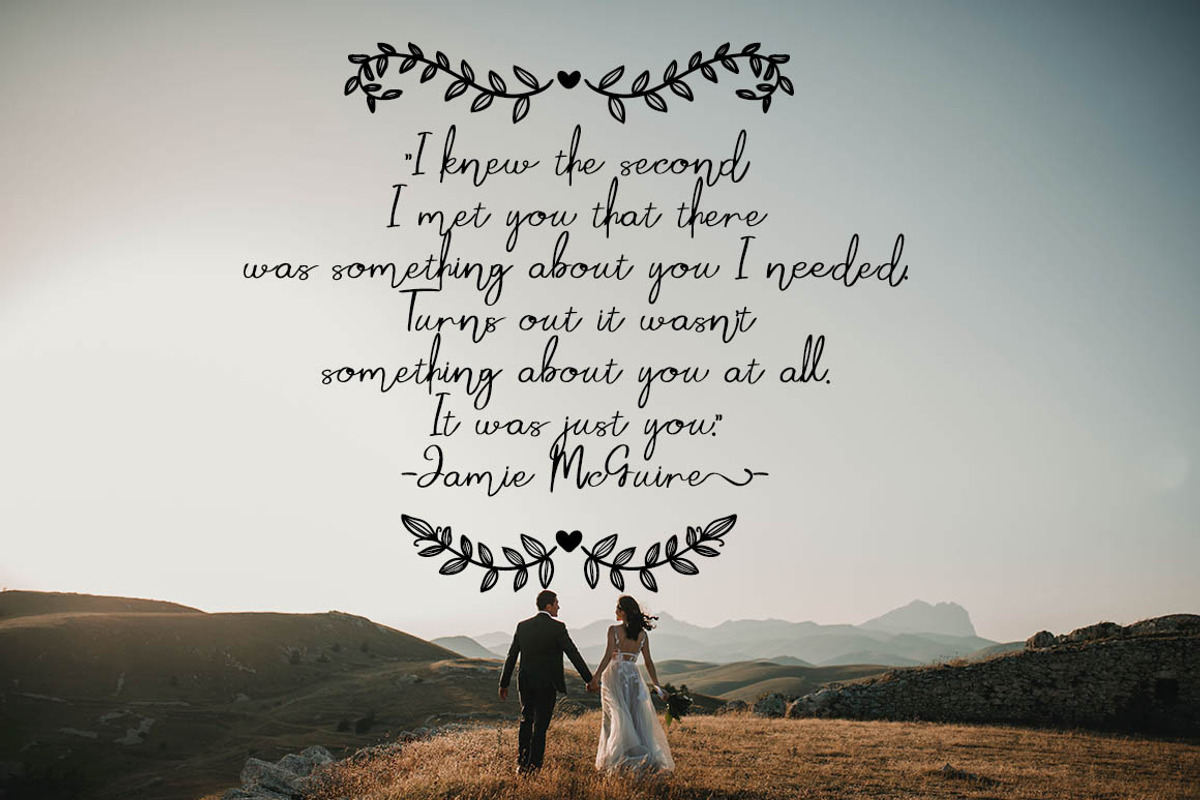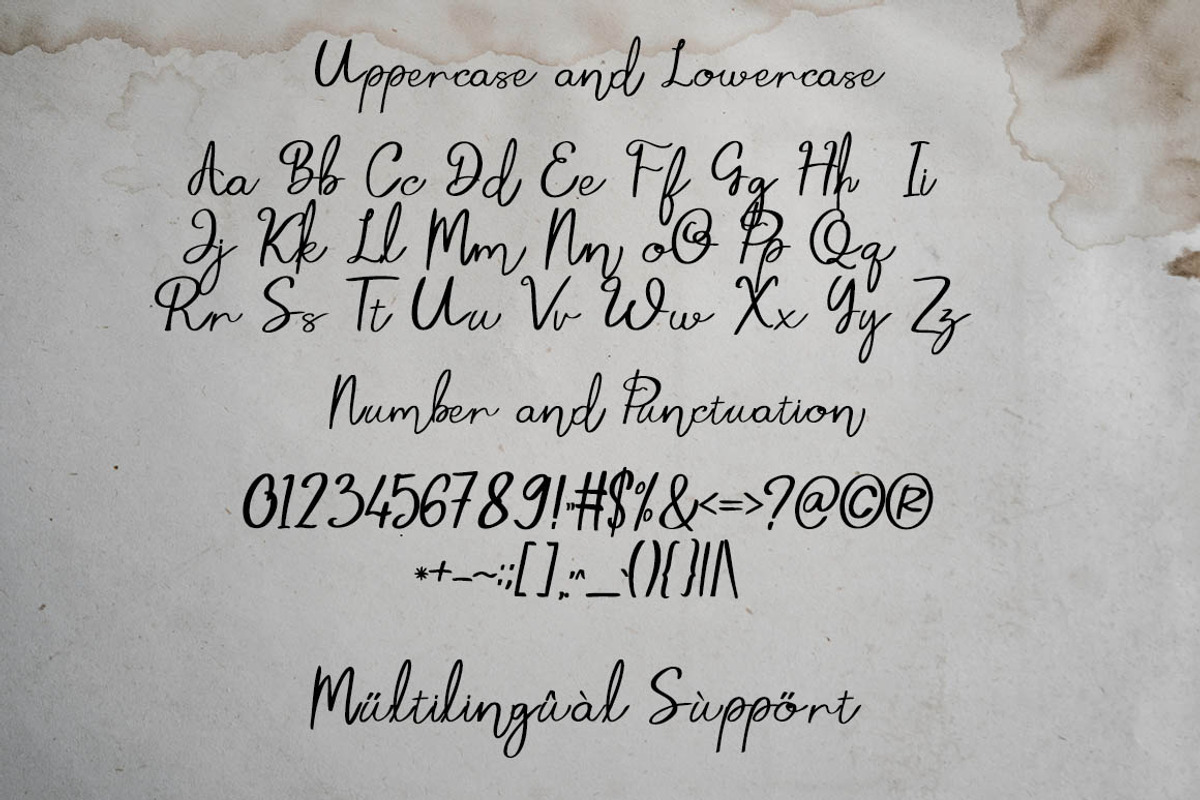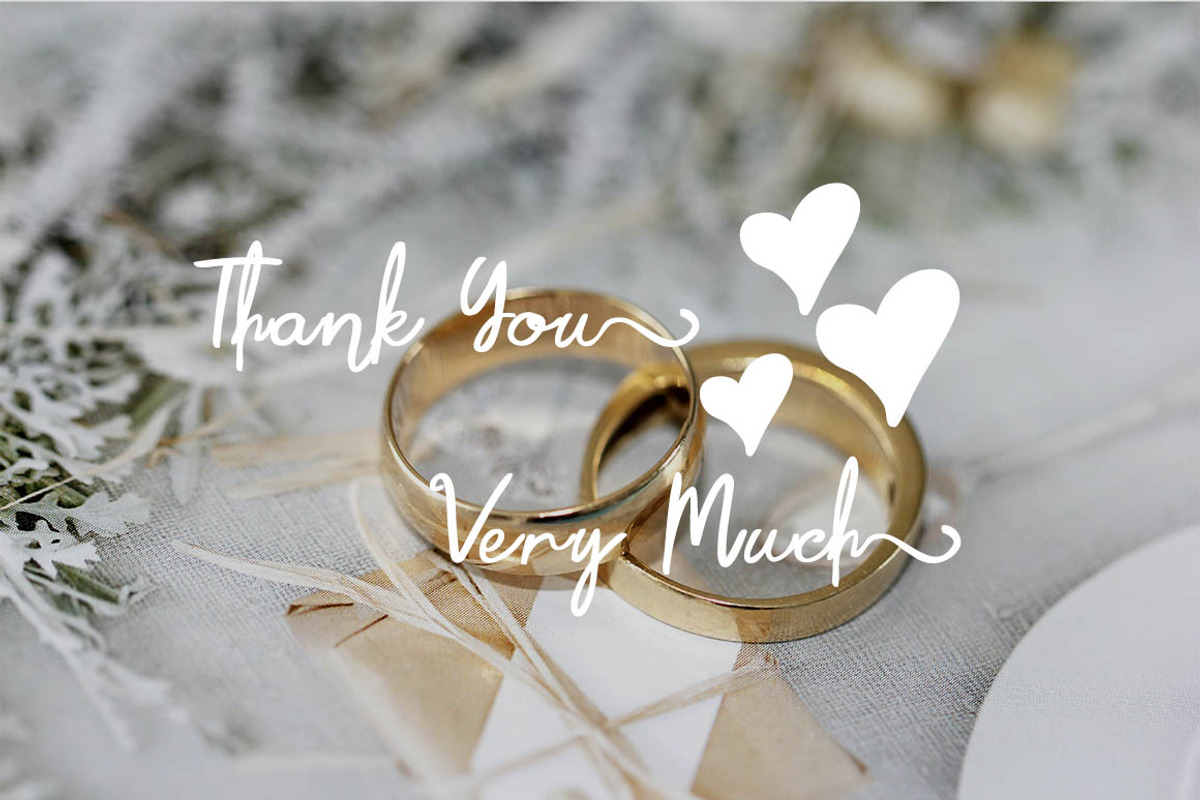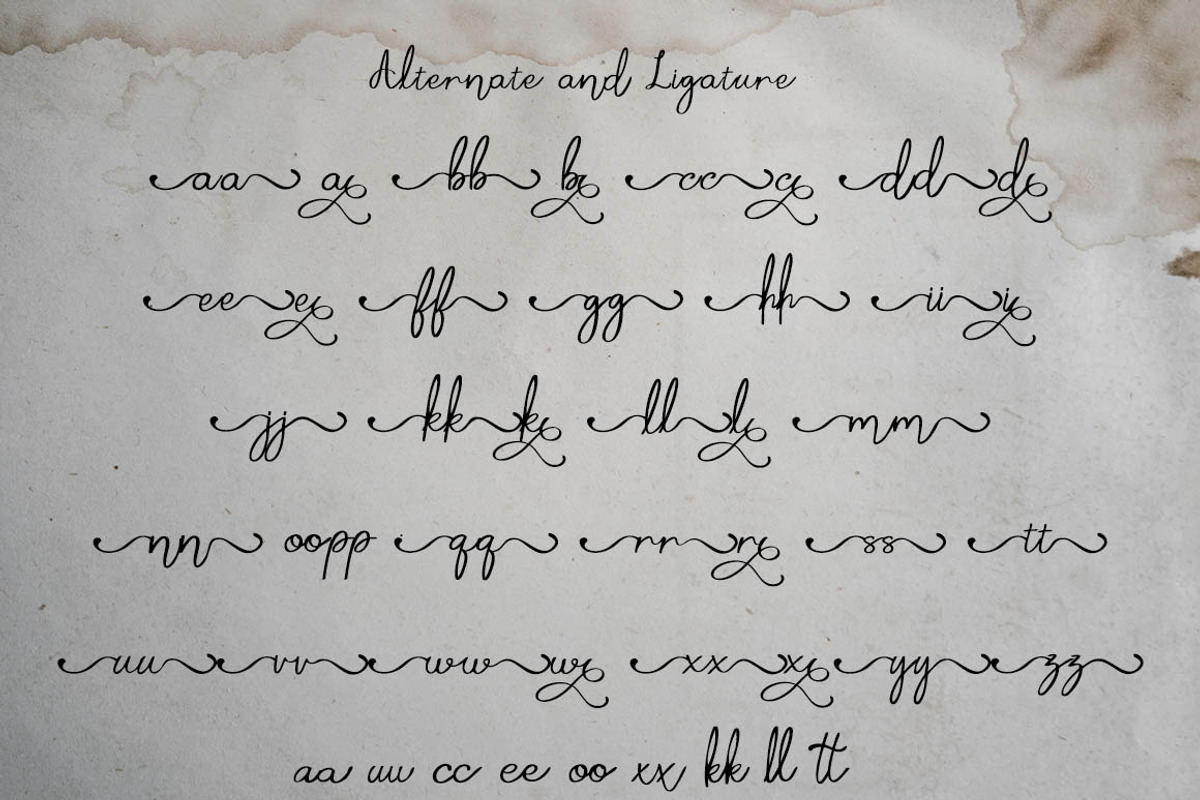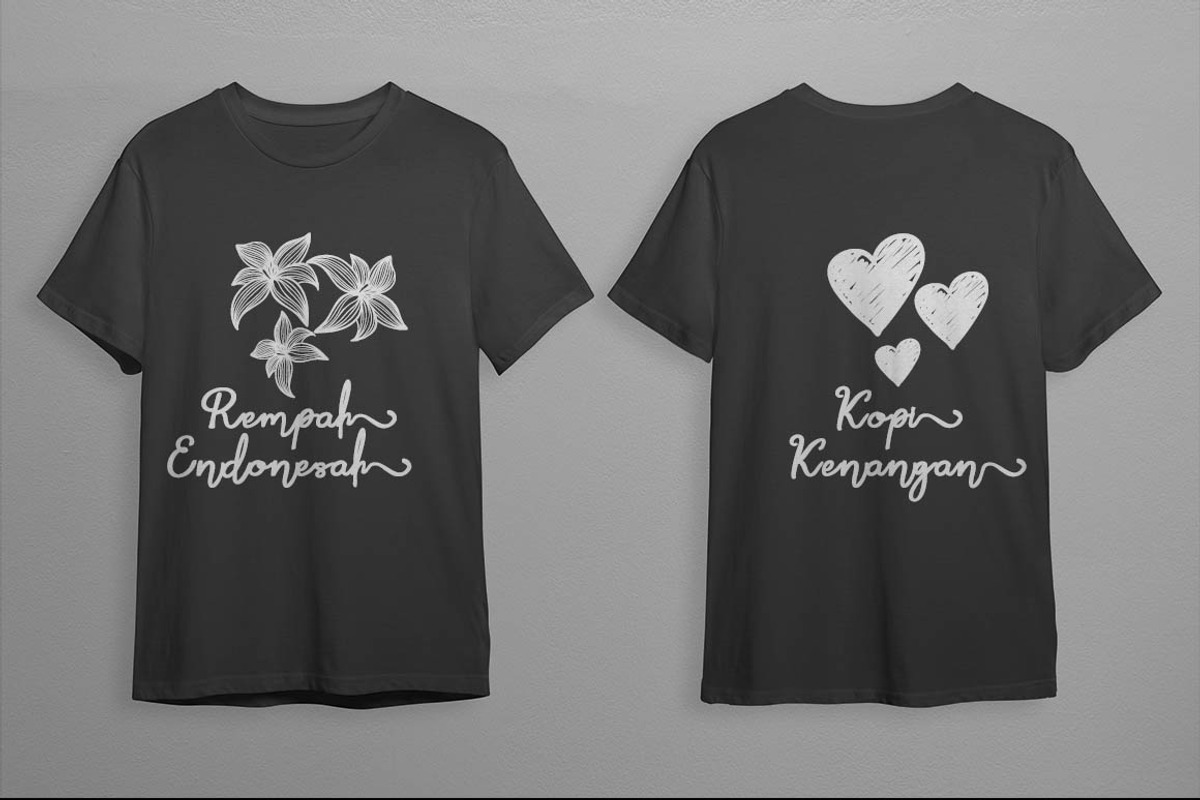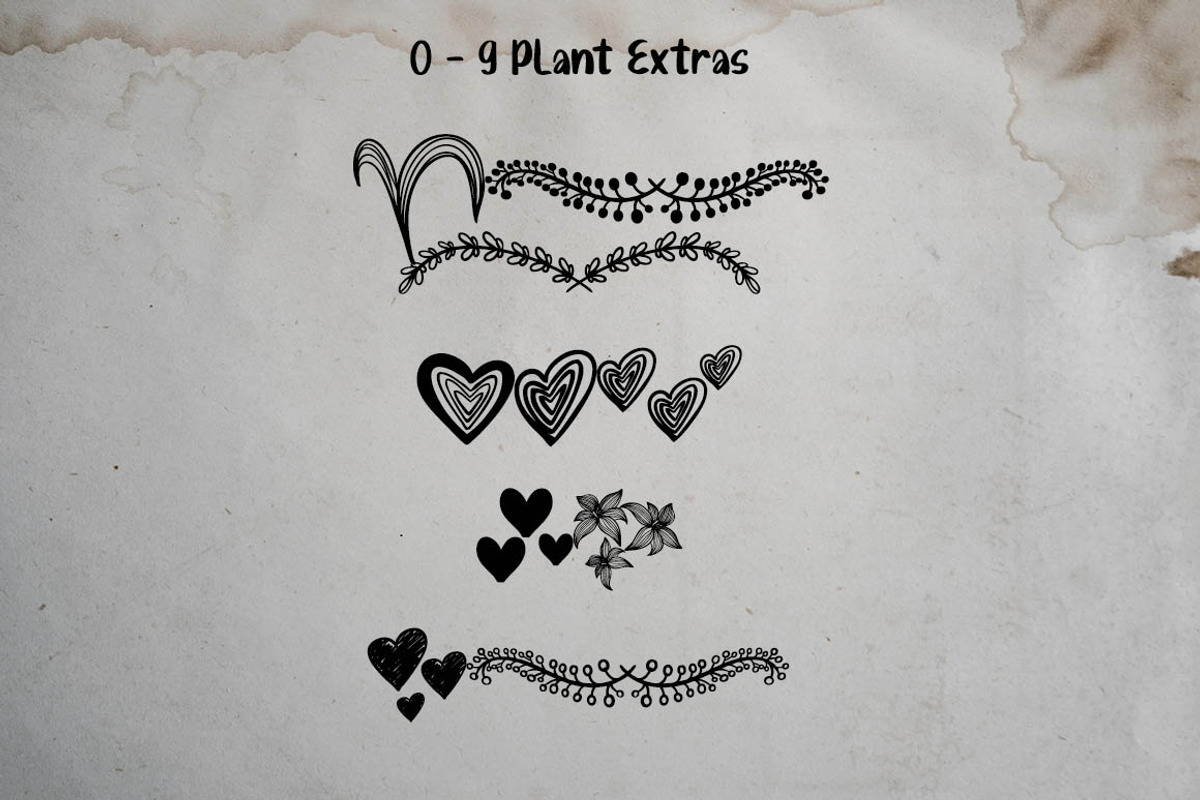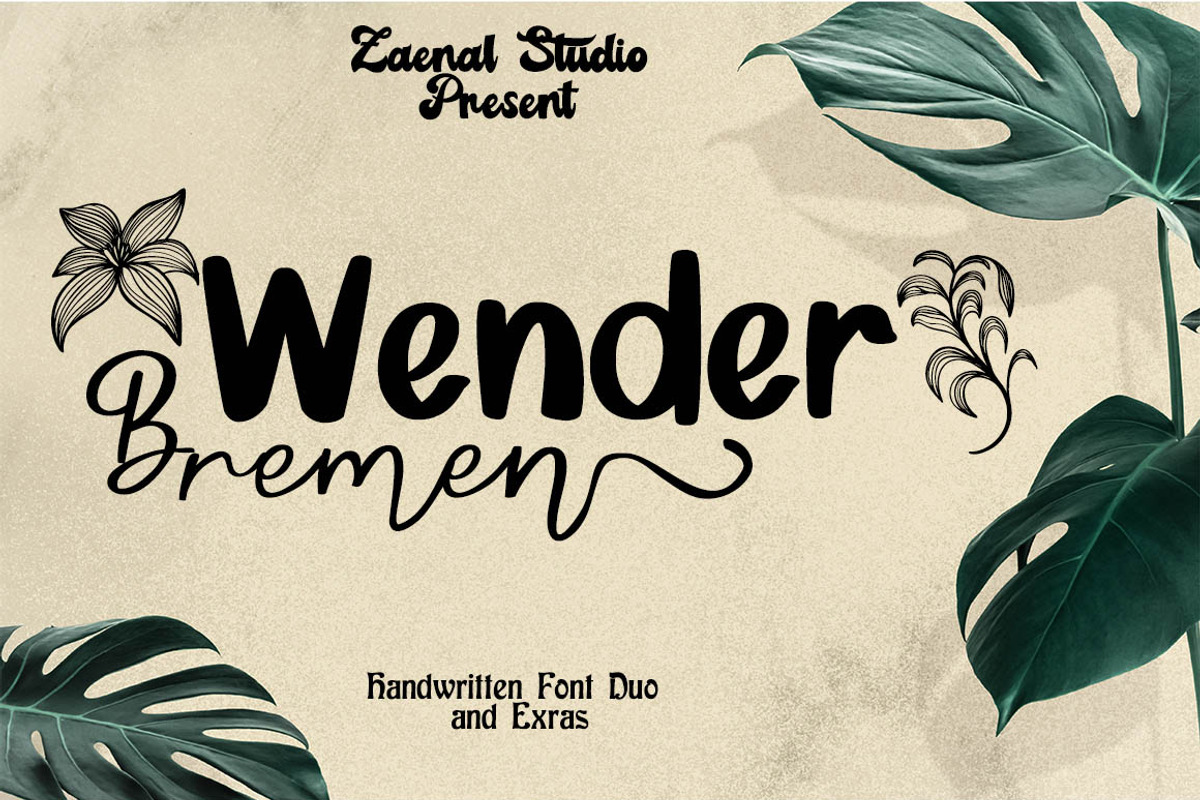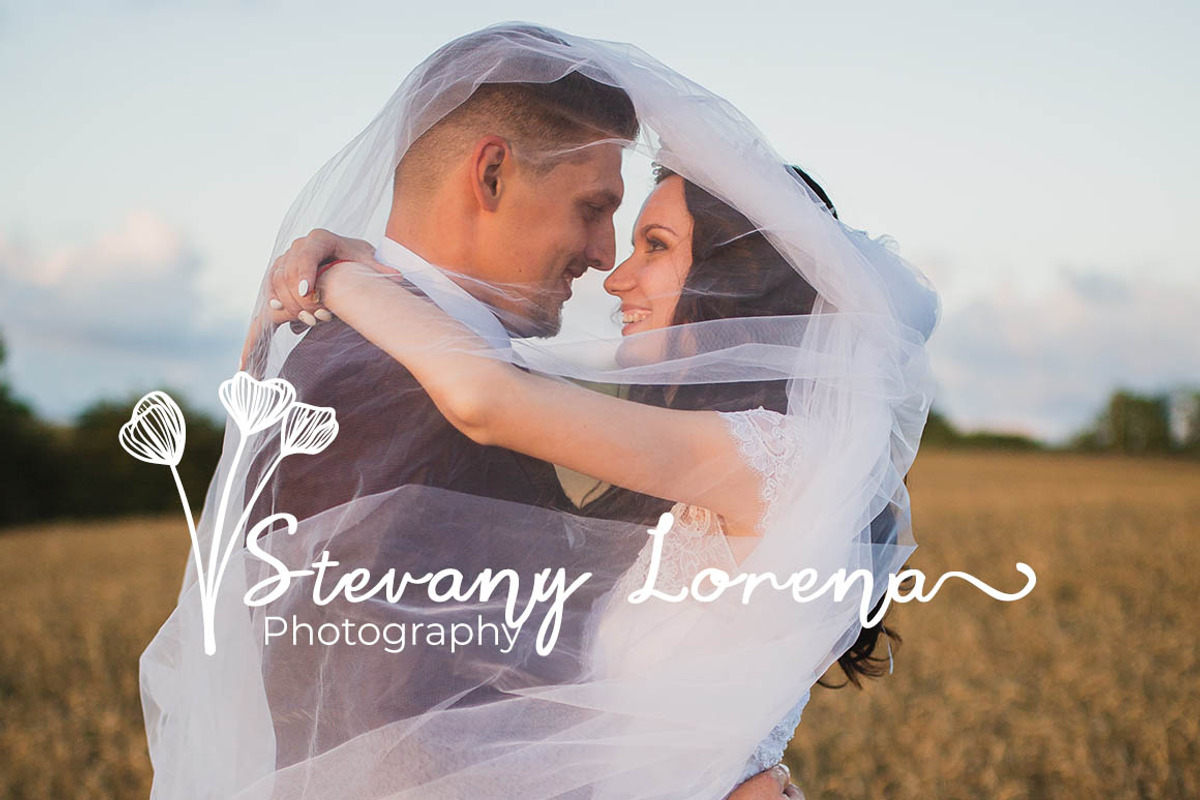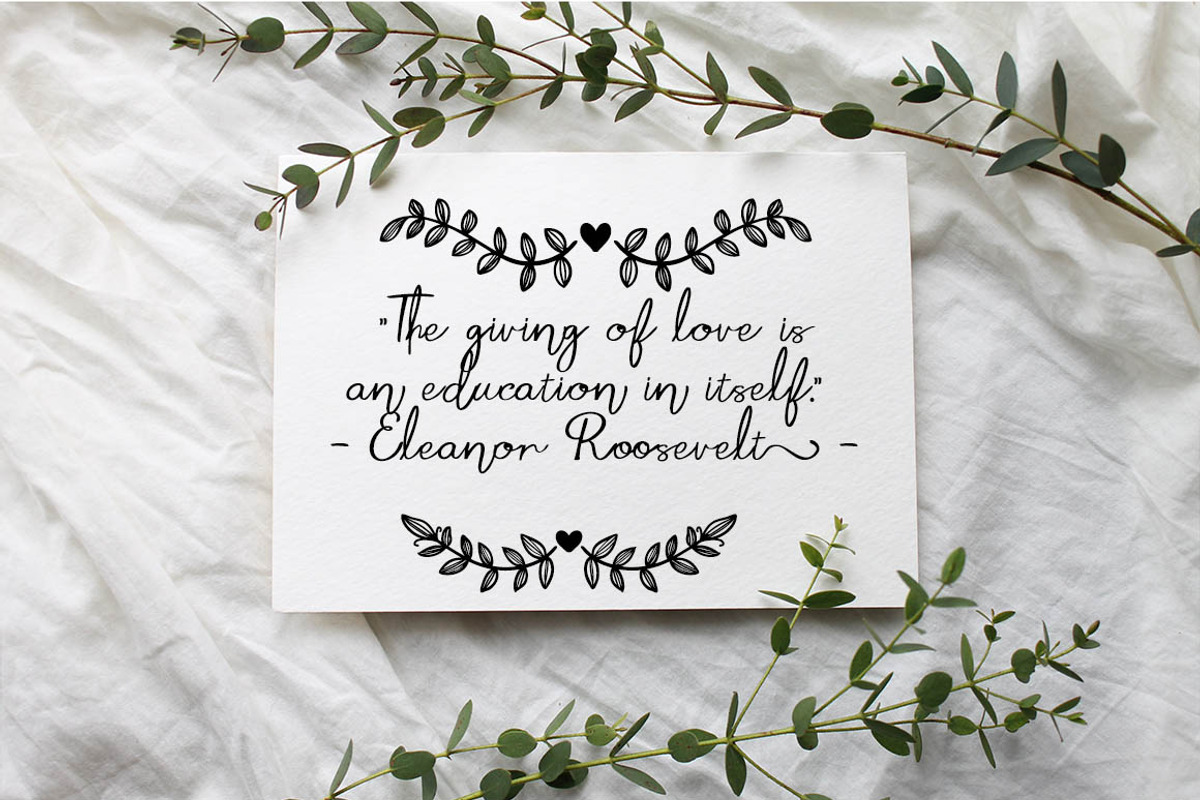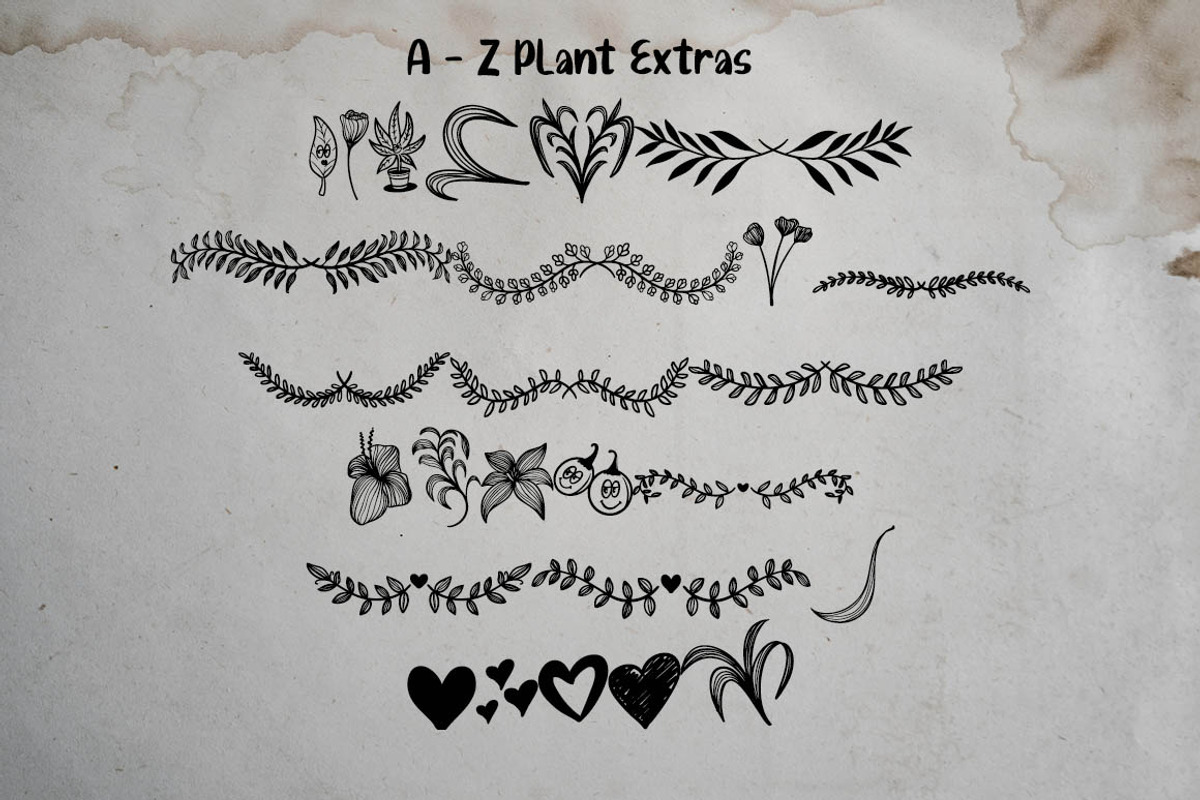
Wender Bremen
Wender Bremen is a Font duo, unique, handwritten font and extras font and very elegant font for brand and logo designs. Based on our experience as graphic designers working in many companies, we are often asked to design a logo with a unique style but with an elegant shape. So, we tried to brainstorm and come up with this font to get ideas out. It is perfect for ,Wedding Invitation, Romantic, BRANDING and LOGO DESIGN. You will get a classy, elegant, and of course unique logo with this font. To make it look even more unique icon plant font so you can create any amazing design you want. Wender Bremen also includes the full set: -uppercase and lowercase -multilingual symbol -number -punctuation -Plant Extras Font -Wender Font -Bremen Font